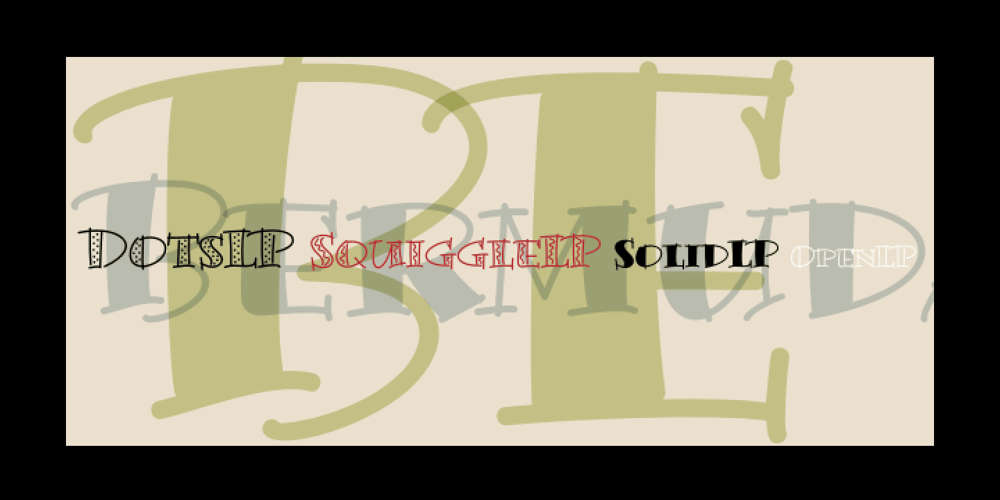
Bermuda LP
Bermuda LP font
Bermuda LP Font Family was designed by Garrett Boge, Paul Shaw and published by LetterPerfect. Bermuda LP contains 4 styles and family package options. The Bermuda Family was designed by Garrett Boge and Paul Shaw, in the vein of freely-drawn showcard lettering — jaunty, fun and friendly. In fact the drawings were made with a Speedball™ B-series pen nib, the stock tool of the showcard letterer. Bermuda Open is a stroked outline version and its character shapes are repeated in the other three styles, each with a separate fill variant — Solid, Dots and Squiggles.